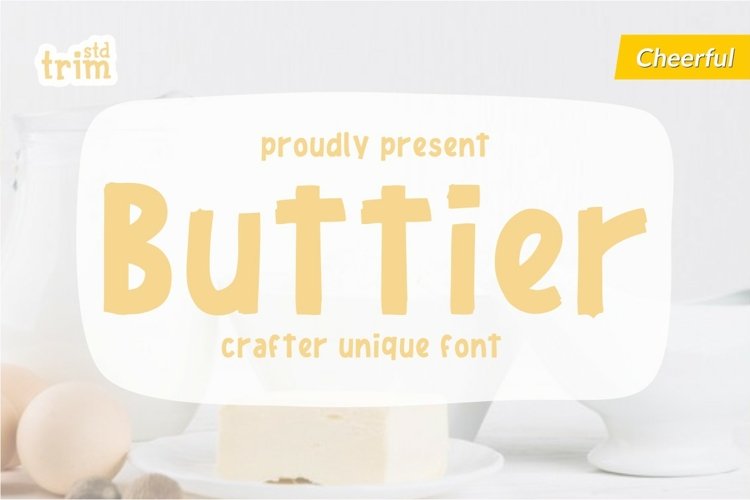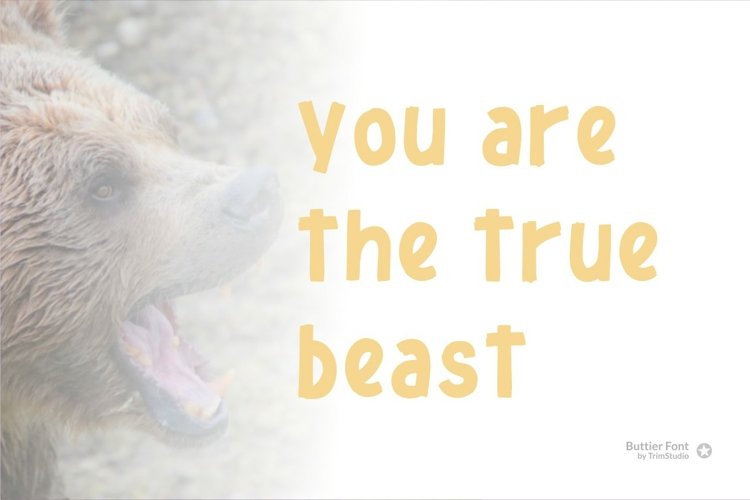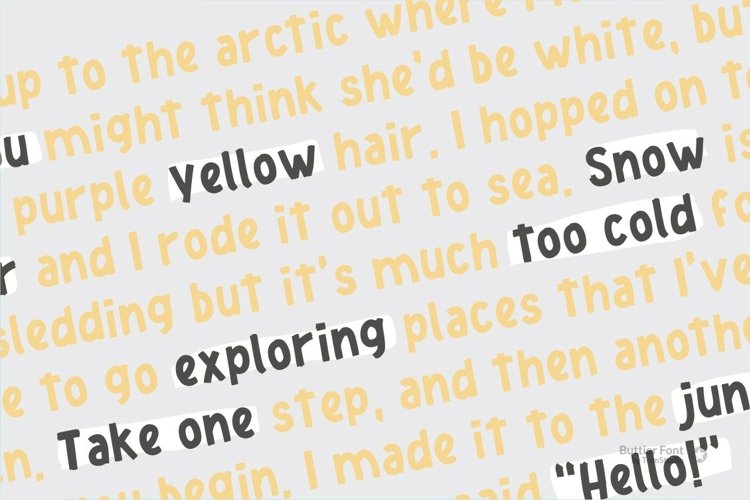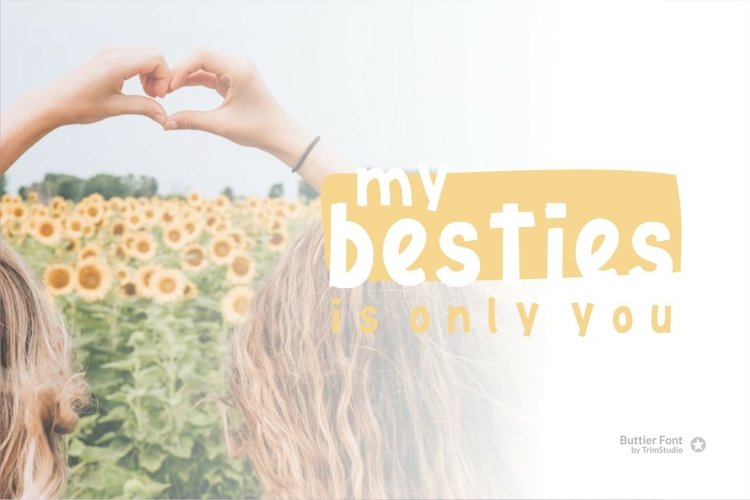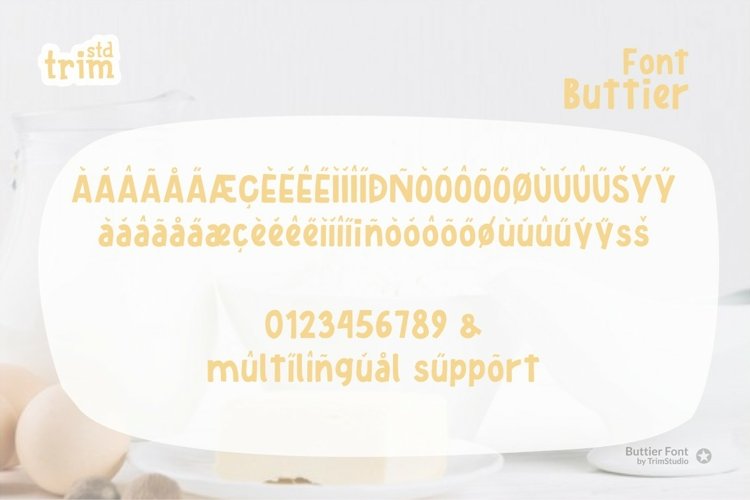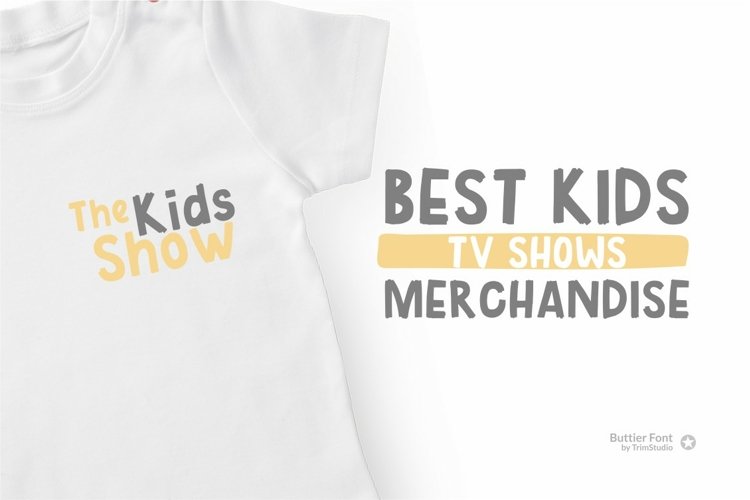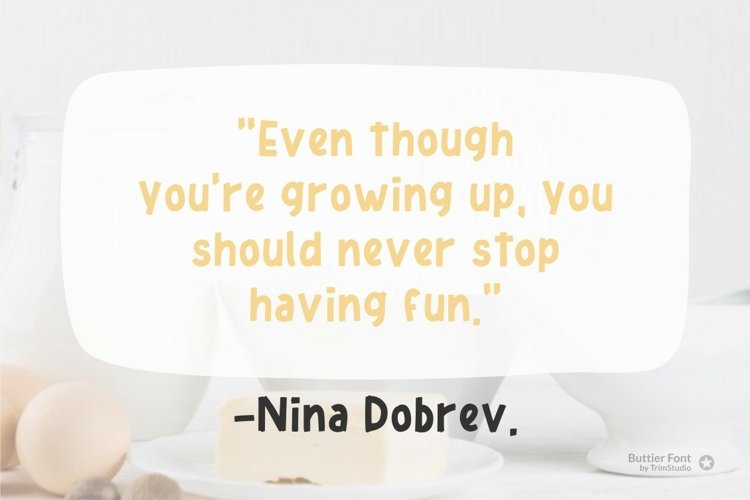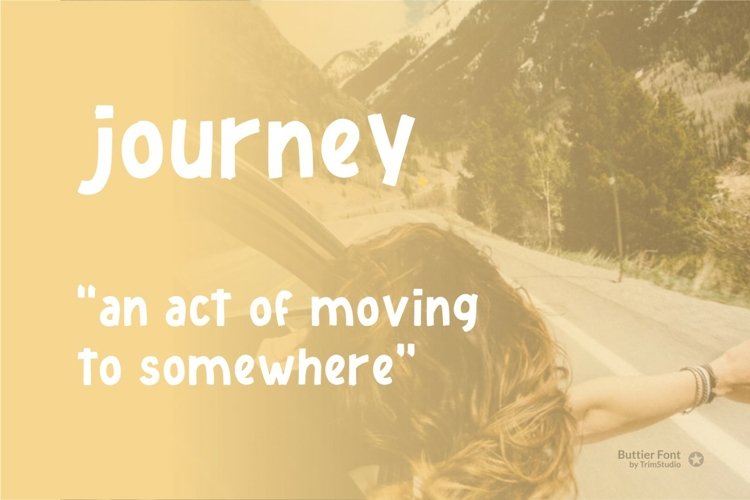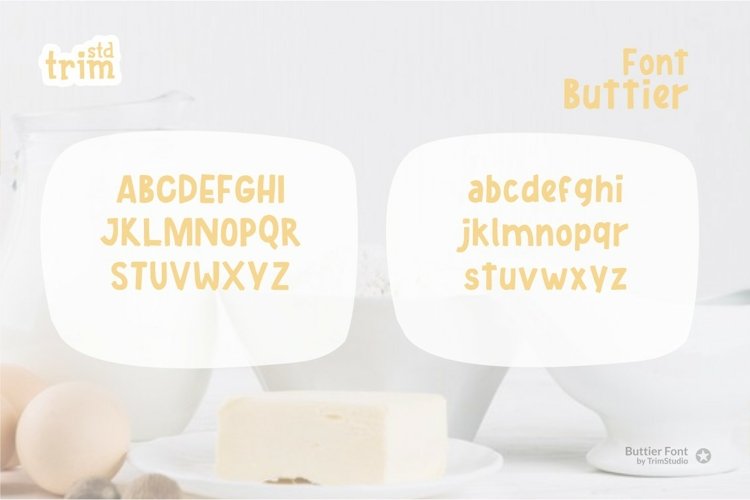
Buttier is handy font with rounded square style its easy to read and feels a bit cartoon
Its perfectly suited for crafter and graphic artist to complete their design such as invitation, advertisement, poster, logo, birthday, product sign, and many more!
Buttier also Lightweight, even so contains All Standard glyphs and punctuations
Buttier – Display Font